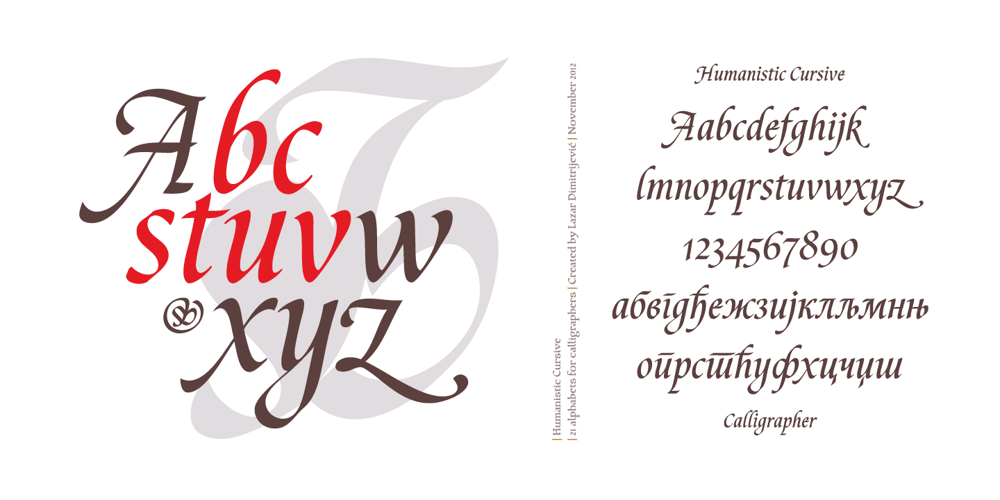
Cal Humanistic Cursive Font Family was designed by Lazar Dimitrijević and published by Posterizer KG. Cal Humanistic Cursive contains 1 styles and family package options. Calligrapher Humanistic Cursive is one of the calligraphic group of fonts called “21 alphabets for Calligraphers“. All graphemes are taken from calligraphic pages written on traditional cursive calligraphic stile. This font is ideal for calligraphic sketches or for imitation of ancient manuscripts. It contains all the Latin and specially-created Cyrillic glyphs.